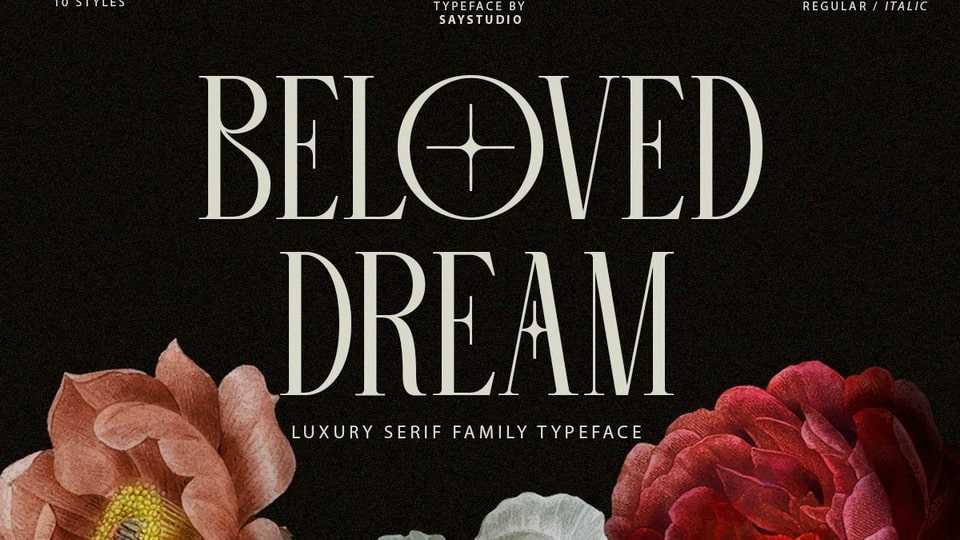
Download Beloved Dream font, a serif typeface, including 5 different weights each with their own italic variation. Beloved Dream will perfect for many project: fashion, magazines, logo, branding, photography, invitations
Designer: Saystudio